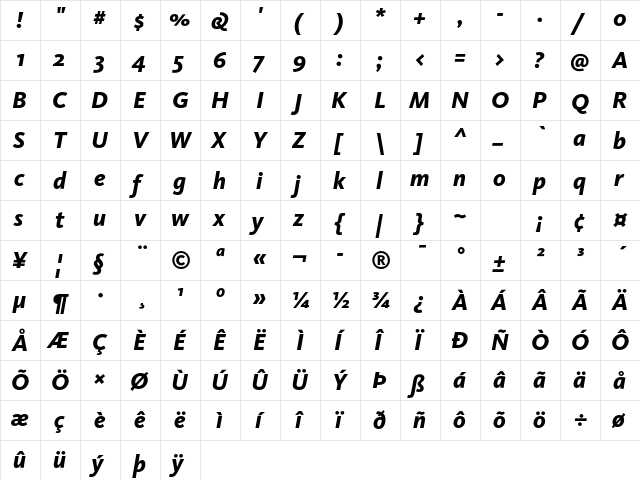
KievitOT-ExtraBoldItalic Regular Font Preview
| Foundry | FSI Fonts und Software GmbH |
| Designer | Mike Abbink |
Design Context for KievitOT-ExtraBoldItalic Typeface
KievitOT-ExtraBoldItalic is a composed and adaptable typeface that performs quietly and consistently across a wide range of design contexts. The dynamic lean of this cut emphasises speed and emphasis in any layout. The heavy weight commands attention and anchors typographic hierarchies.
Pro Tip: Try KievitOT-ExtraBoldItalic for annotation and caption copy alongside an upright companion — the contrast in angle creates a dynamic but ordered typographic system.